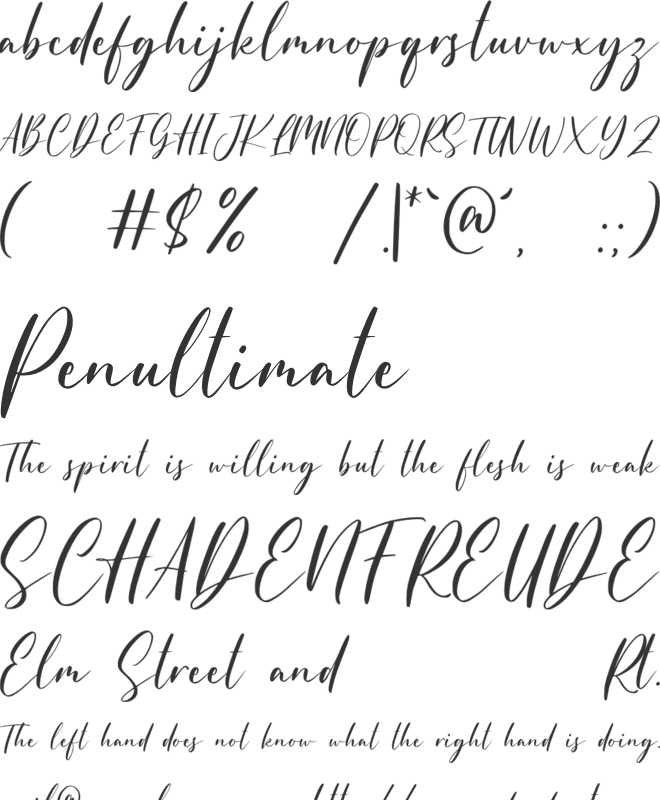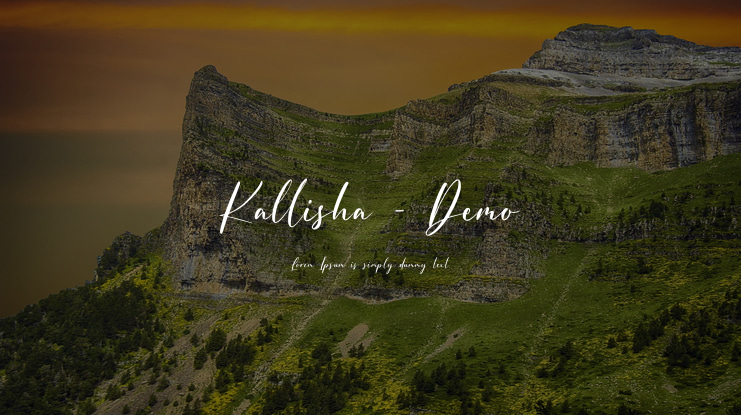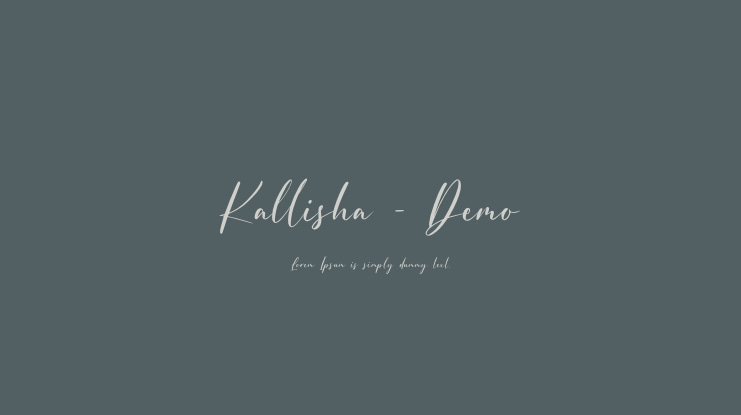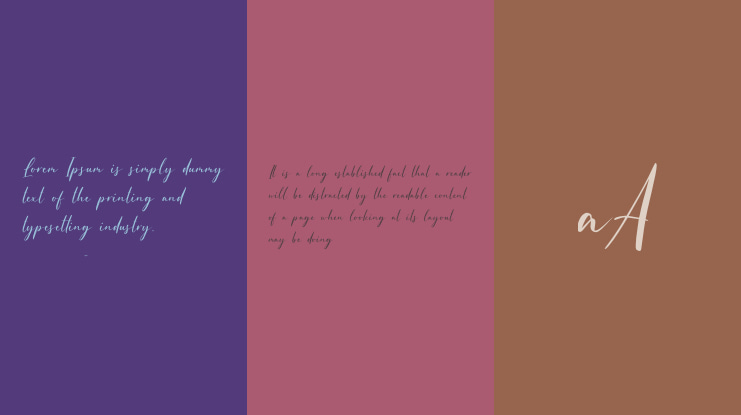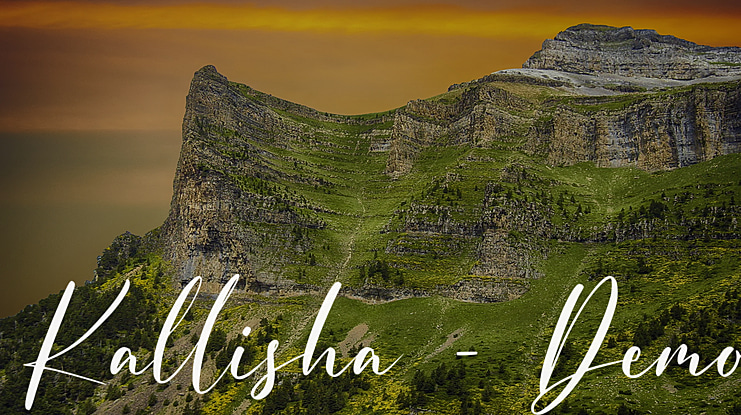
Kallisha - Demo Font
Kallisha – Handwritten Script Font
Say hello for our best seller ” Kallisha ” with Natural Handwritten Artistic Style, this is perfect for branding, logos, packaging, masterheads and more.